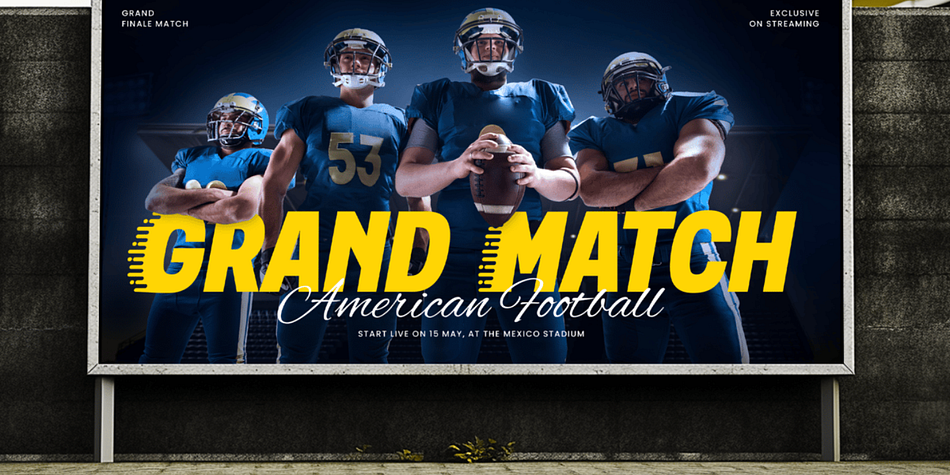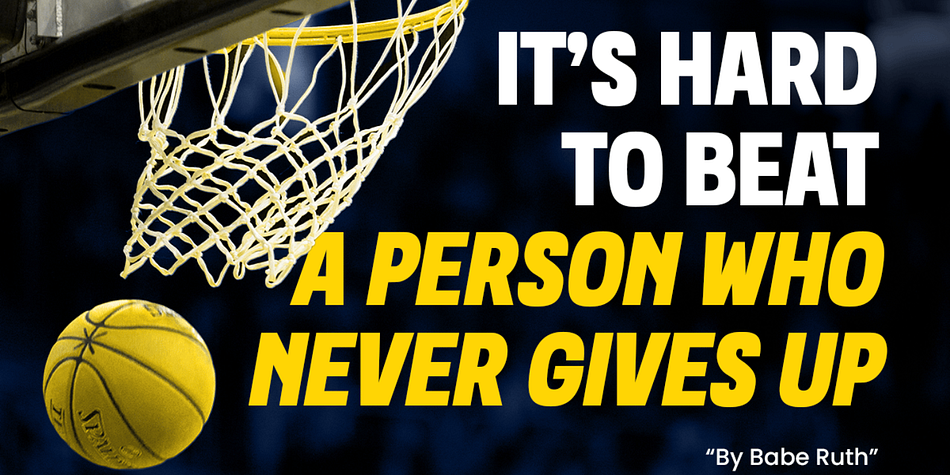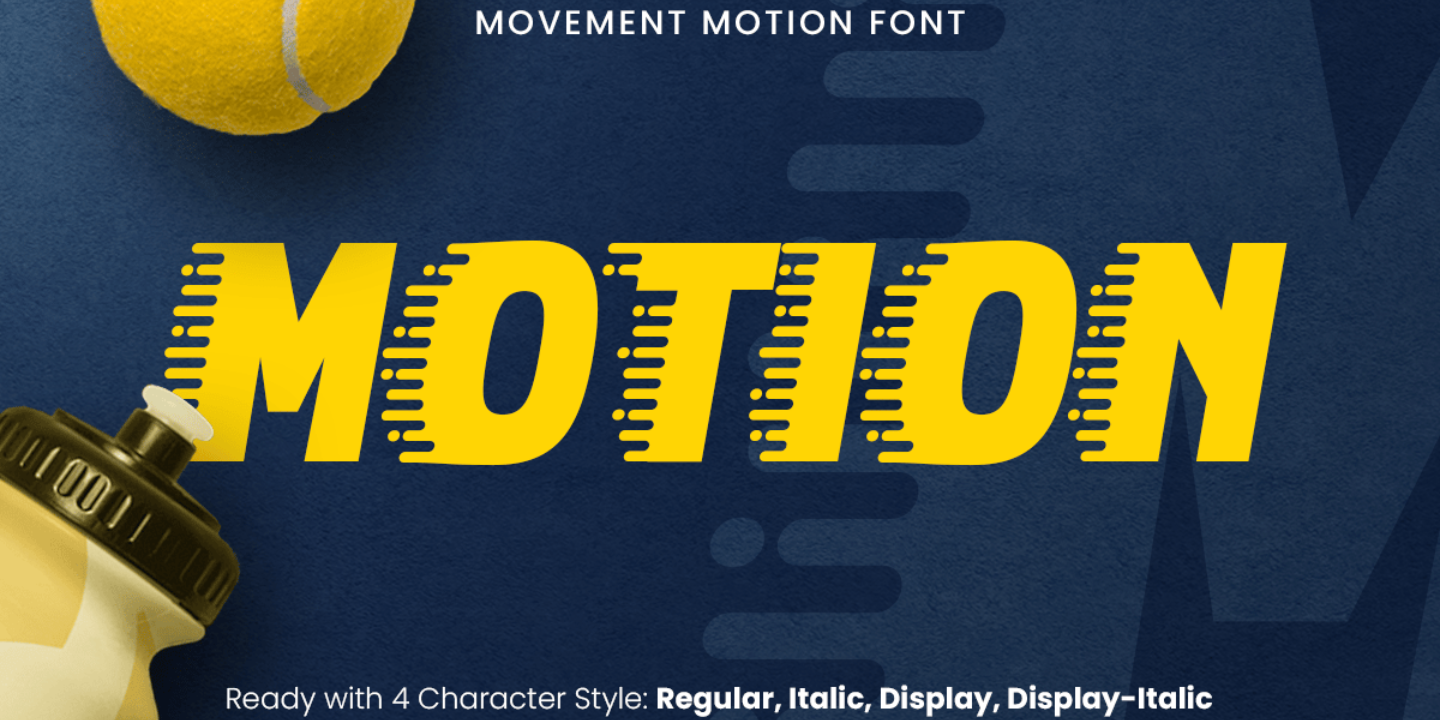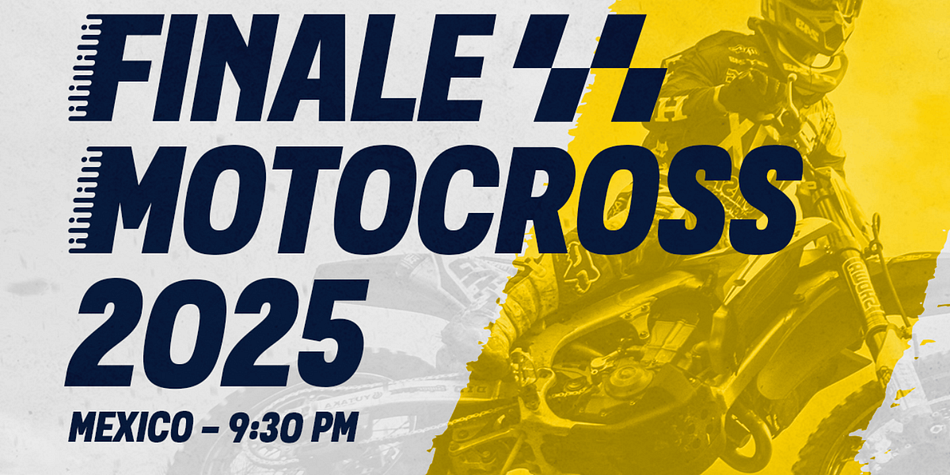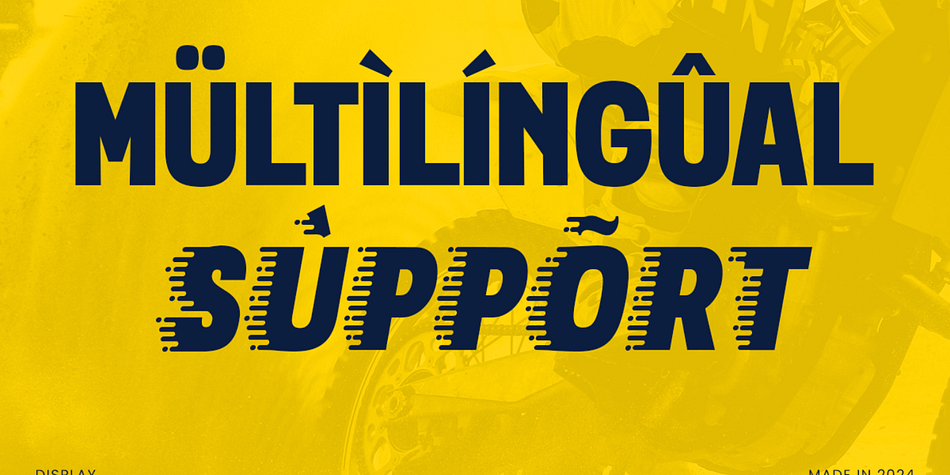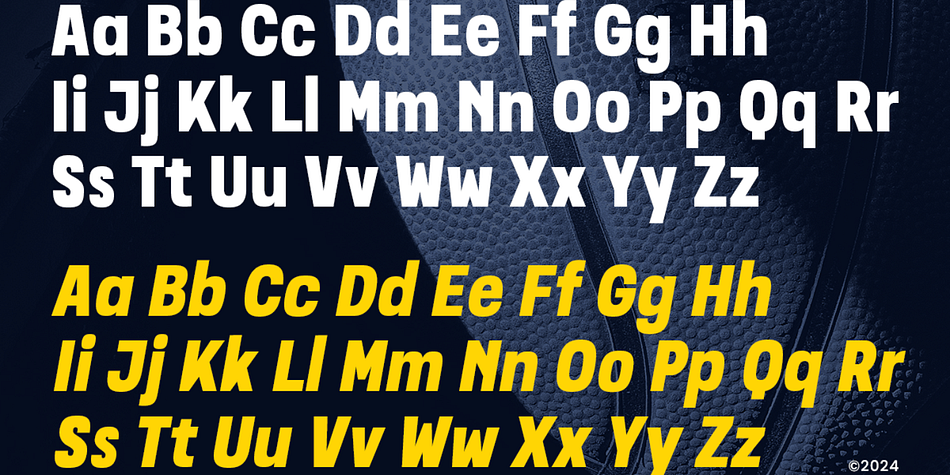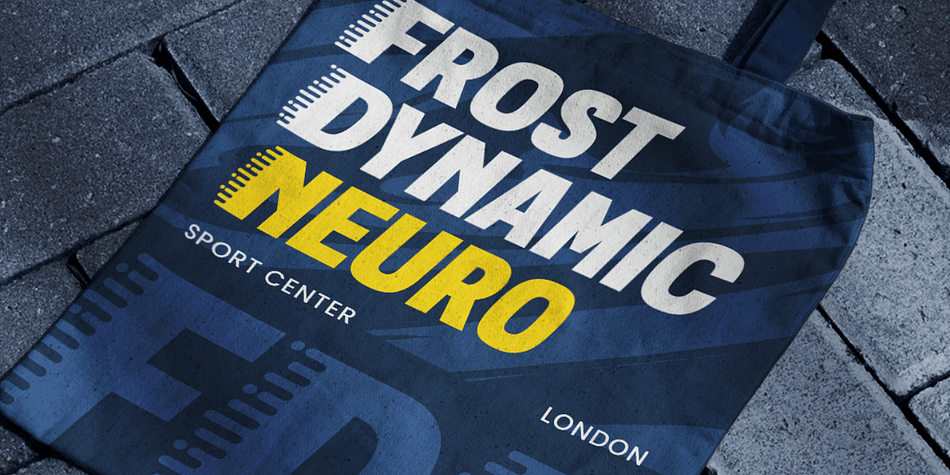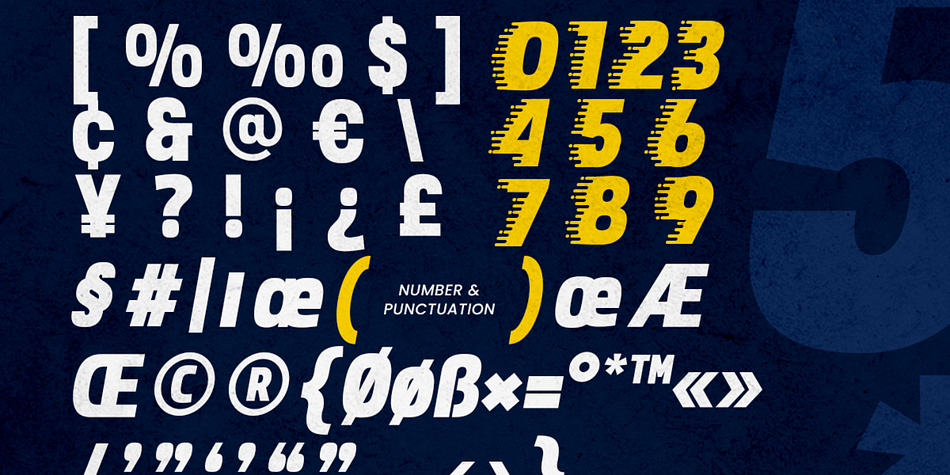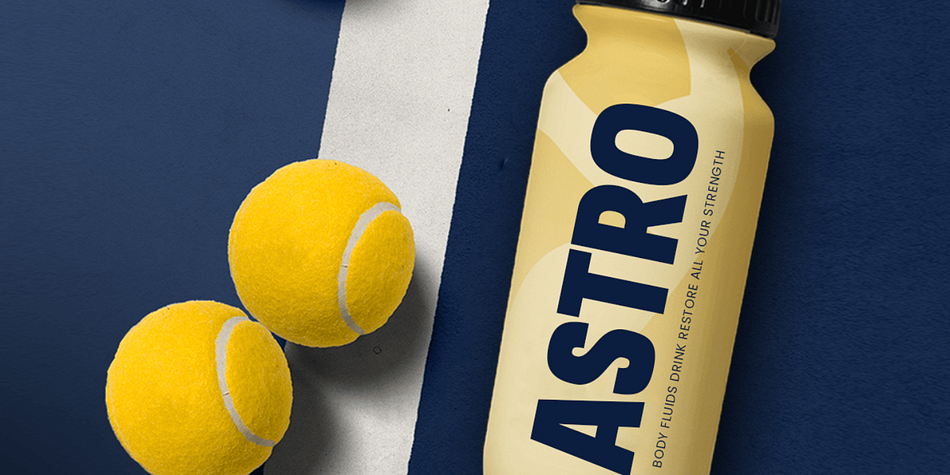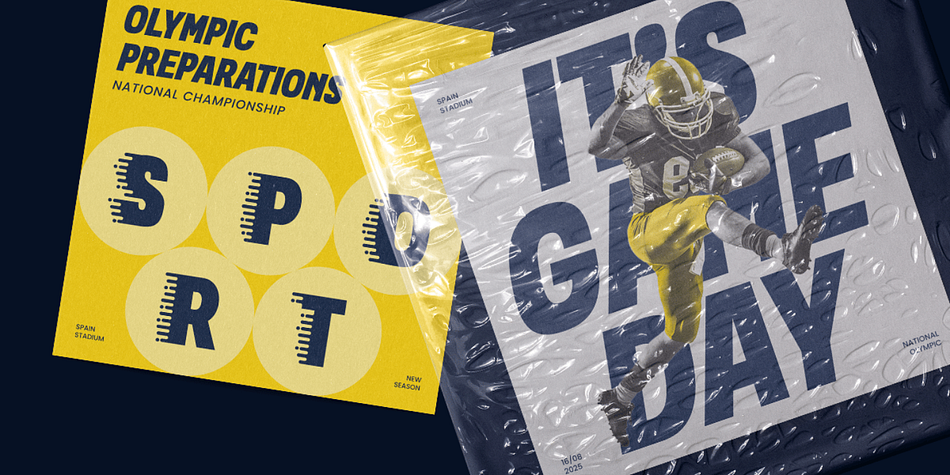
Motion is a font crafted to embody the essence of movement and energy. Inspired by the fluidity and rhythm of motion, this typeface combines sleek curves and dynamic lines to create a powerful presence. Whether you’re working on branding, posters, or logo design, Motion delivers a fresh and bold aesthetic that resonates with energy.
Perfect for contemporary designs, Motion excels in projects that require a modern and futuristic touch. Its versatility ensures that it can adapt to various styles, making it suitable for everything from promotional materials to tech-oriented designs.
With Motion, you can bring vibrancy and life to your projects. Its unique characteristics make it a standout choice for designers looking to emphasize speed, energy, and creativity in their work.
Motion - Movement Motion Font Features:
Dynamic Motion Letterforms
Ready with 4 Styles: Regular, Italic, Display, Display Italic
Unique Punctuation, Number, and Symbol
Uppercase and Lowercase
Opentype Features
Multilingual Characters available for:
Afrikaans, Albanian, Asu, Basque, Bemba, Bena, Breton, Chiga, Cornish, Dutch, English, Estonian, Filipino, Finnish, Friulian, Galician, German, Gusii, Indonesian, Irish, Italian, Kabuverdianu, Kalenjin, Kinyarwanda, Luo, Luxembourgish, Luyia, Machame, Makhuwa-Meetto, Makonde, Malagasy, Manx, Morisyen, North Ndebele, Nyankole, Oromo, Portuguese, Quechua, Romansh, Rombo, Rundi, Rwa, Samburu, Sango, Sangu, Scottish Gaelic, Sena, Shambala, Shona, Soga, Somali, Spanish, Swahili, Swedish, Swiss.